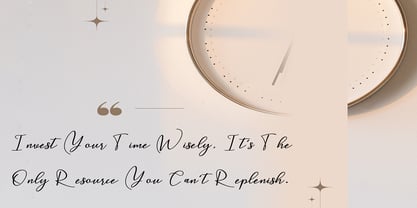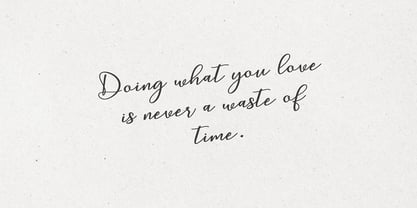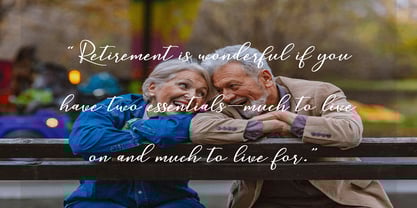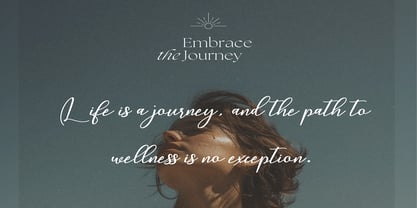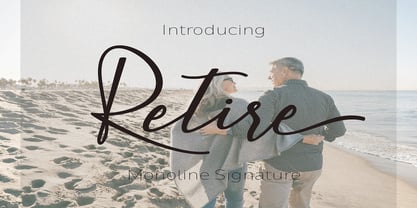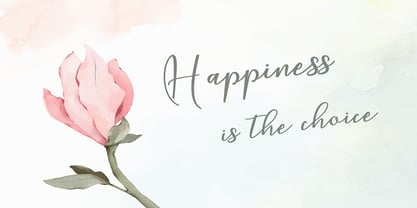
Retire
by Dream Font
The Retire Font Family was designed by Ron Zwingelberg and published by Dream Font. Retire contains 1 styles. More about this family
Retire is a beautiful handwritten font. It looks lovely on wedding invitations, thank you cards, quotes, greeting cards, logos, business cards and every other design which needs a handwritten touch.
This font is PUA encoded which means you can access all of the glyphs and swashes with ease! It features a varying baseline, smooth lines, gorgeous glyphs and stunning alternates
Designers: Ron Zwingelberg
Foundry: Dream Font